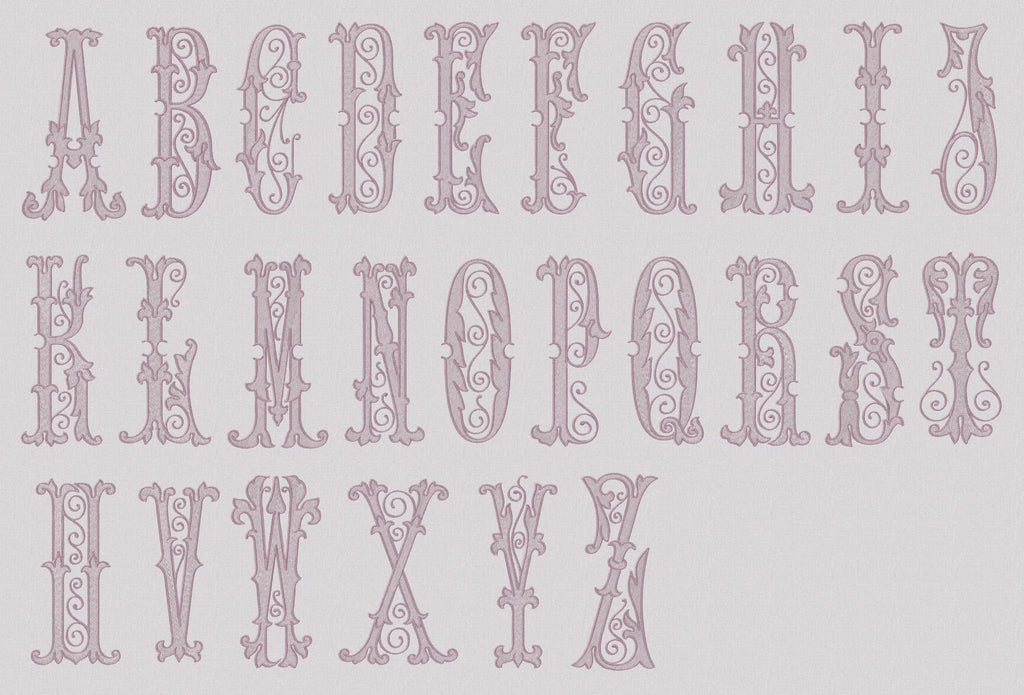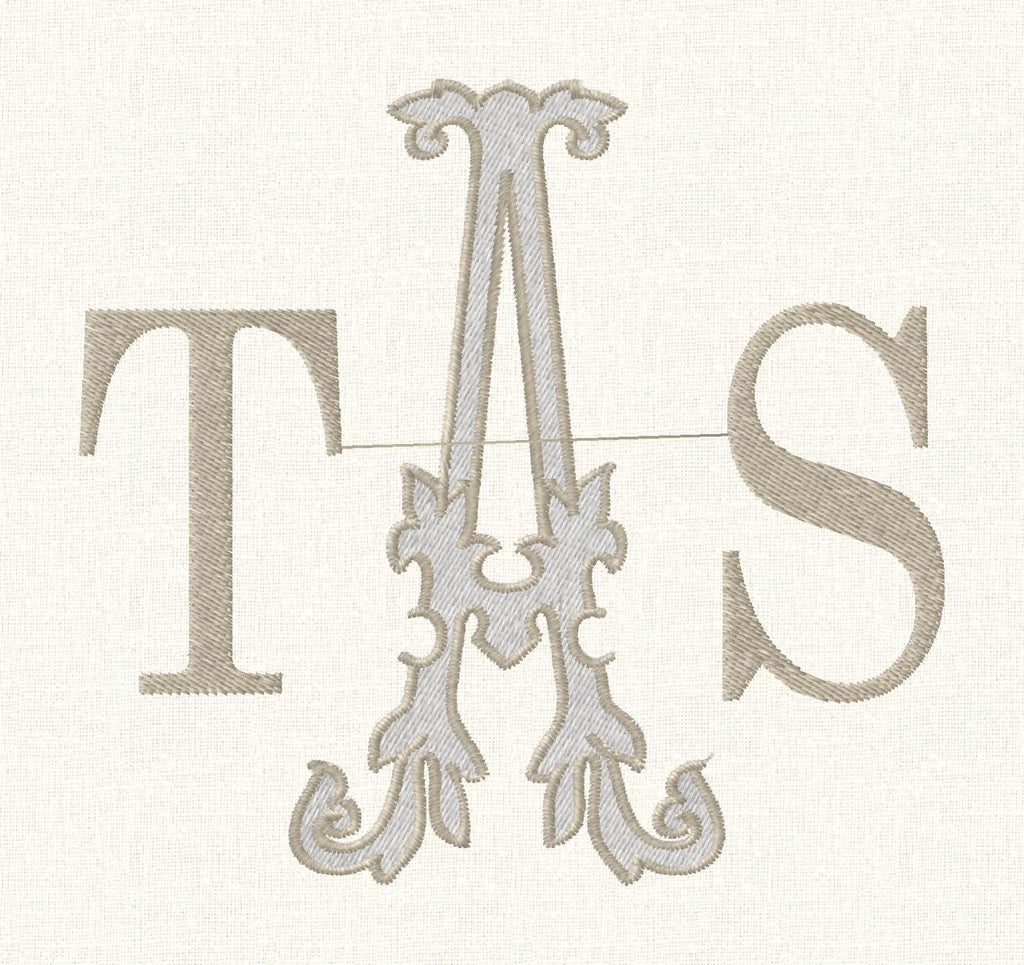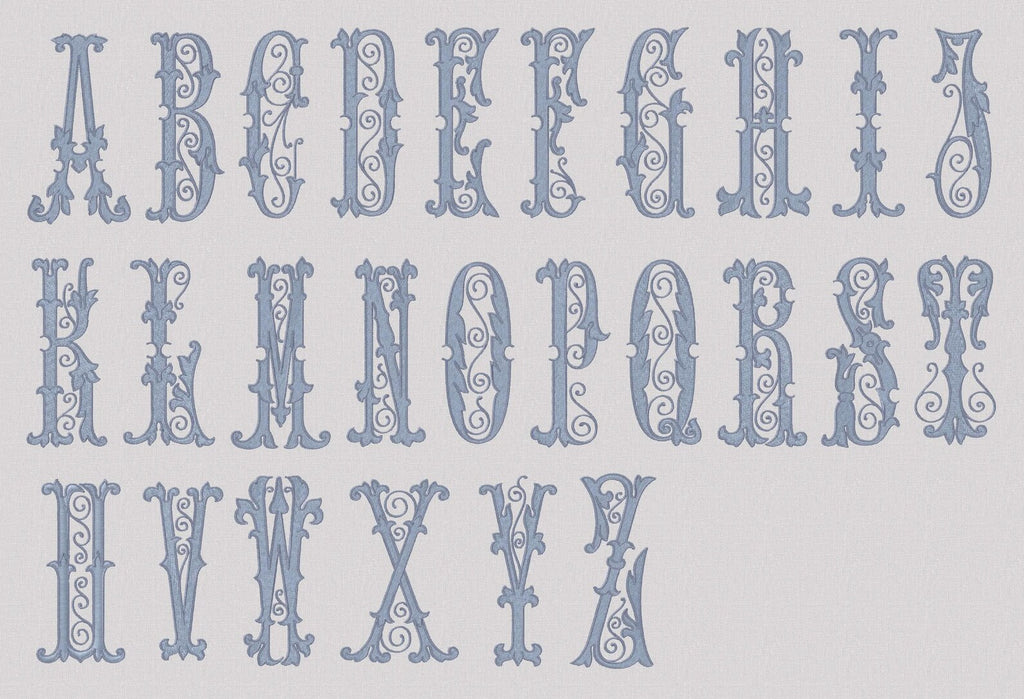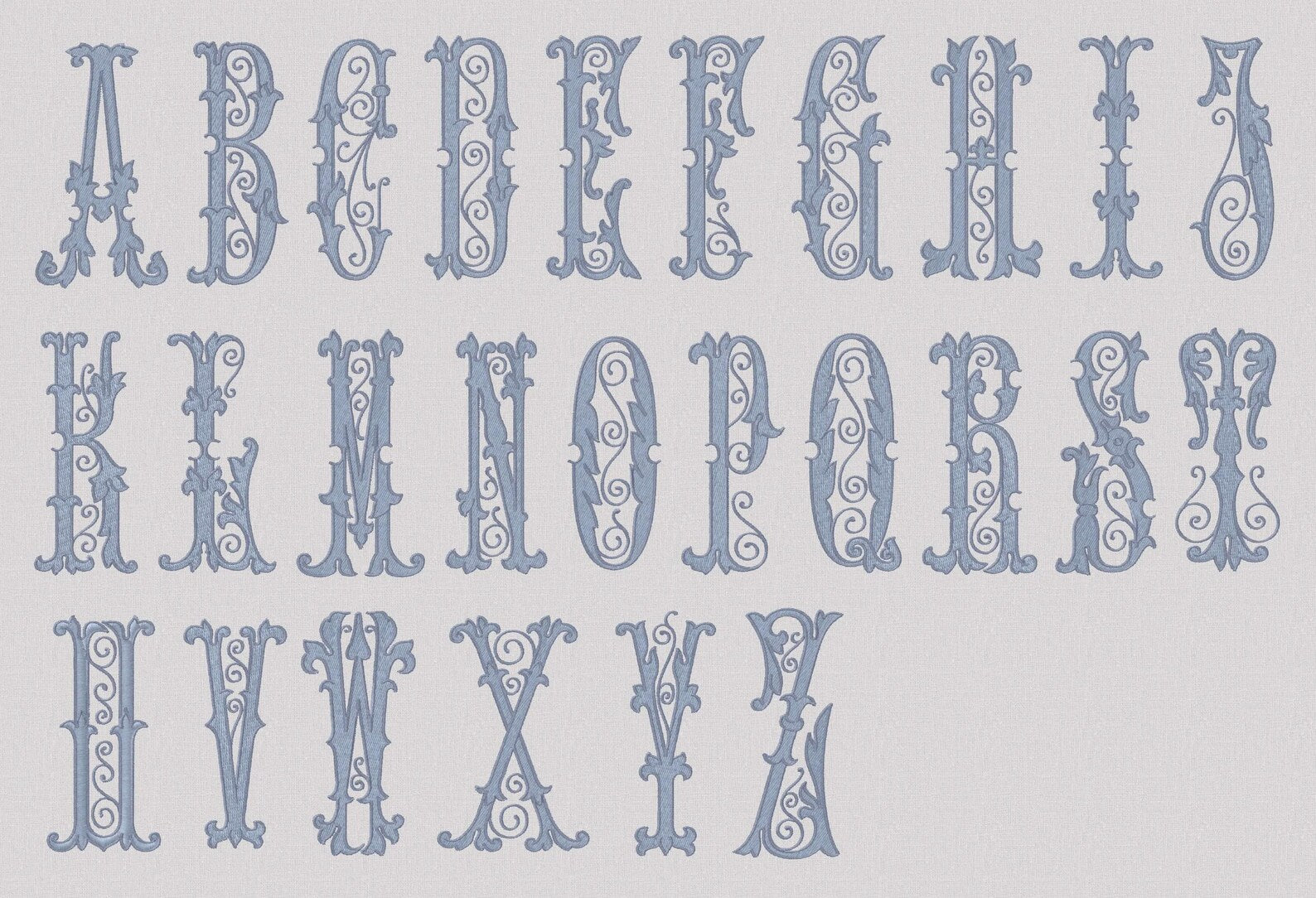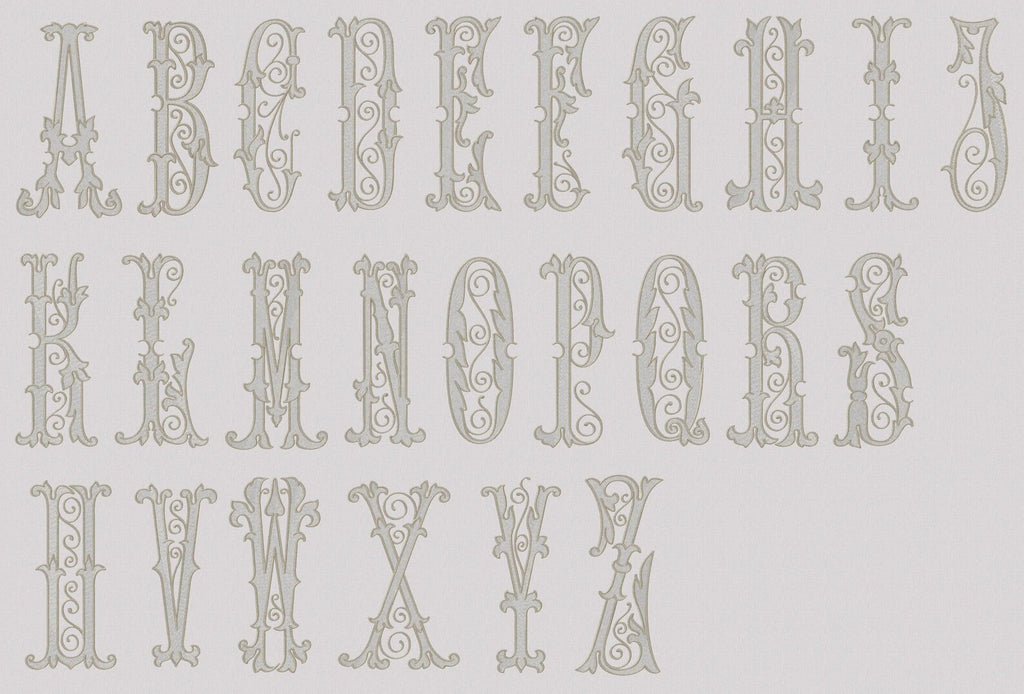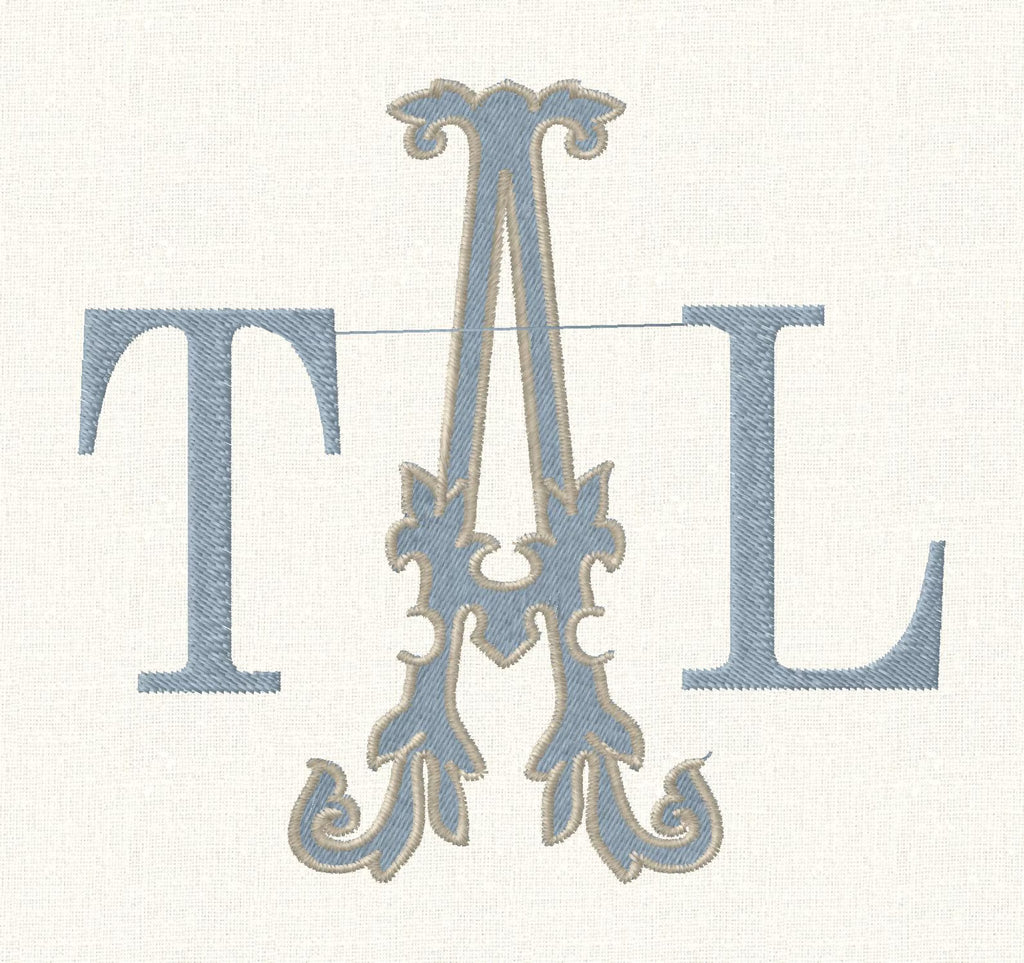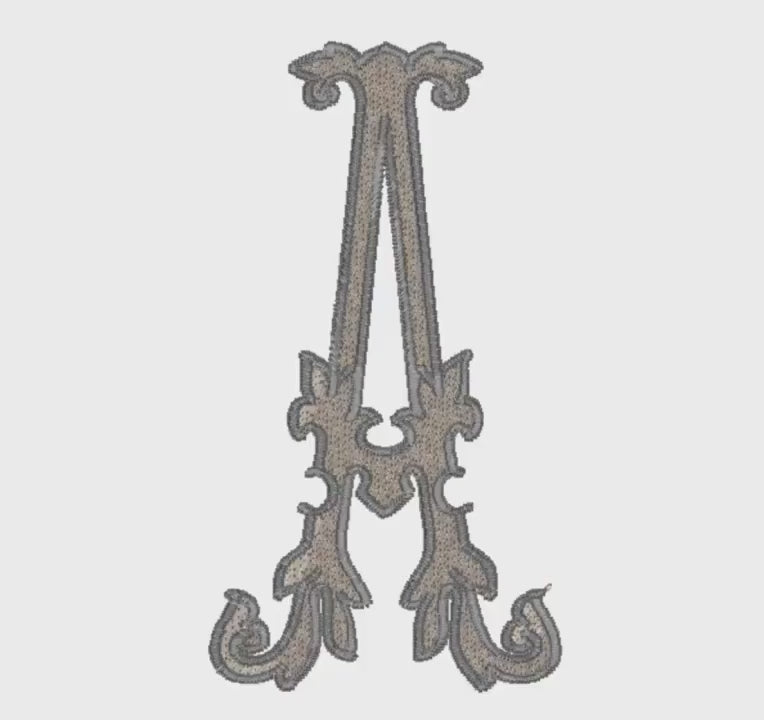
4" Antique Monogram Embroidery Font: Florence 2-Color Satin Stitch (10 File Formats)
Florence Antique Fancy Monogram 2 Color Satin and Fill Stitch Embroidery Font 10 File Formats for Instant Download 4 inch
Satin & Fill- Use 1 or 2 color per letter- Can use the same color for satin & fill or 2 colors. Use alone or pair with a font you own!
*2 block letters shown on sides are not part of the Florence font collection. They are a reference image showing how Florence looks paired with other fonts.*
Florence font stitches beautifully as 1 single letter or 3 letters side by side